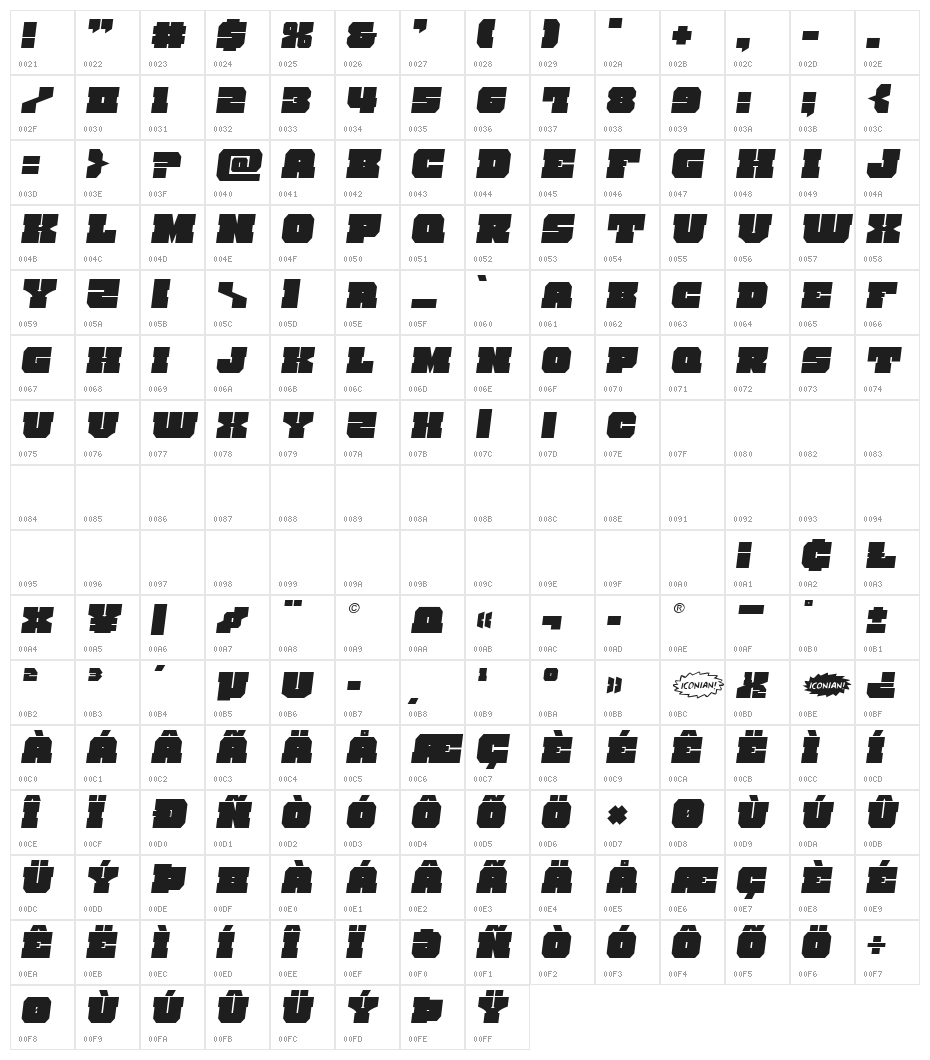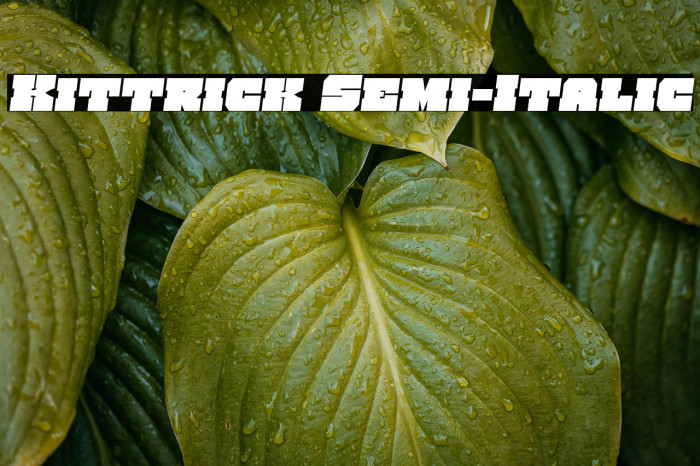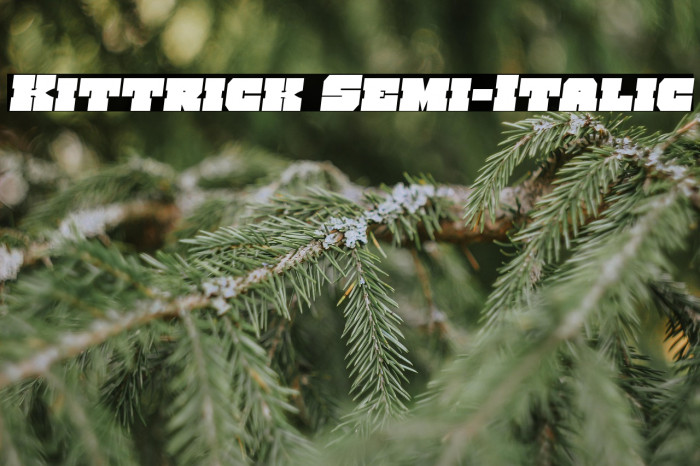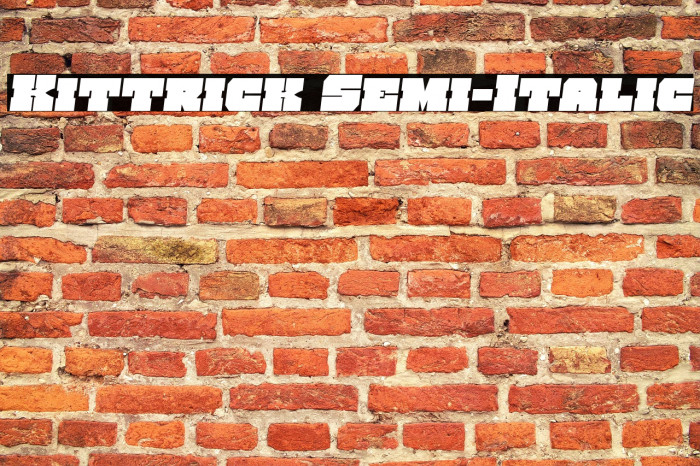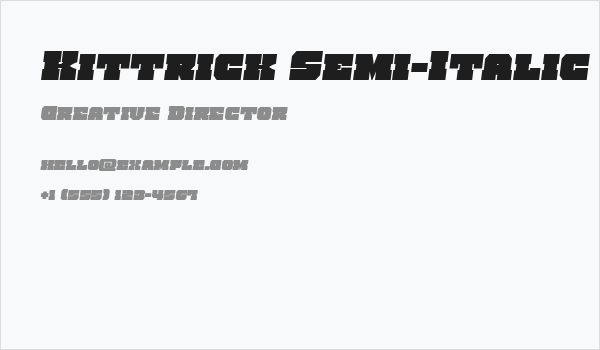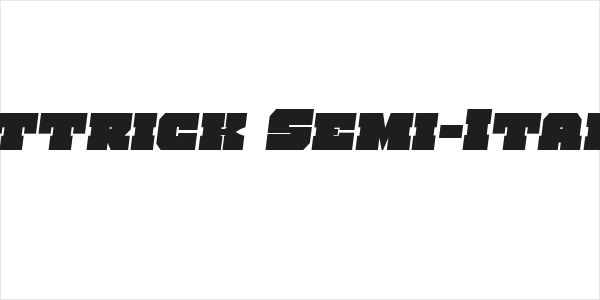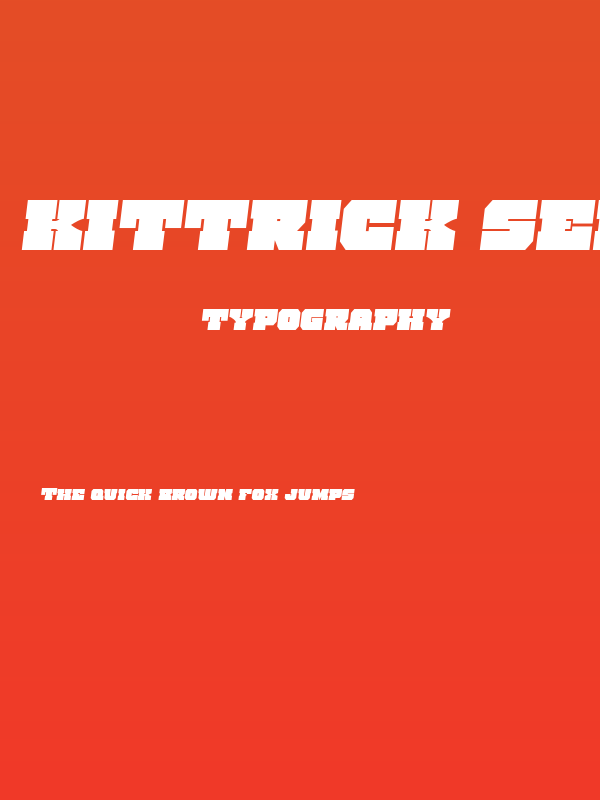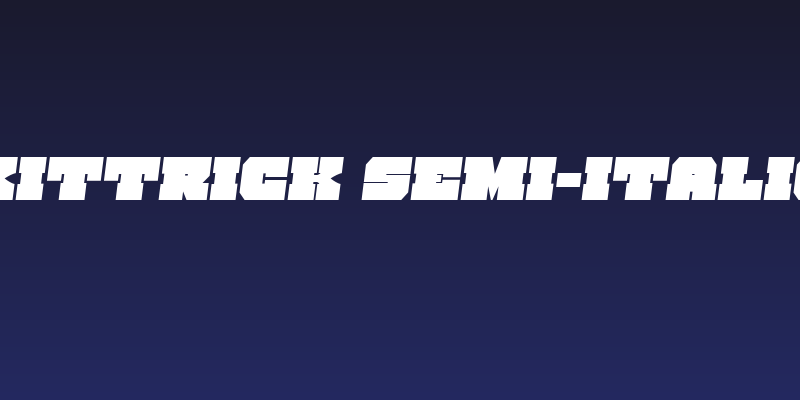
Kittrick Semi-Italic Font
Kittrick Semi-Italic Description
This font features a bold and impactful design with a semi-italic slant, giving it a dynamic and energetic appearance. The characters are constructed with thick, block-like shapes that convey strength and stability. The angular cuts and sharp edges add a modern and edgy feel, making it suitable for attention-grabbing headlines and titles. The uppercase and lowercase letters maintain a consistent style, ensuring a cohesive look across different text sizes. The numerals and special characters are designed to match the boldness of the alphabet, providing a uniform aesthetic throughout.
| Proposed Projects | Ideal for branding, posters, sports team logos, and any project requiring a strong, modern typeface. |